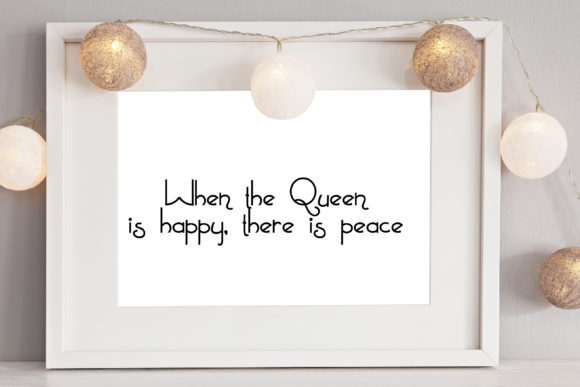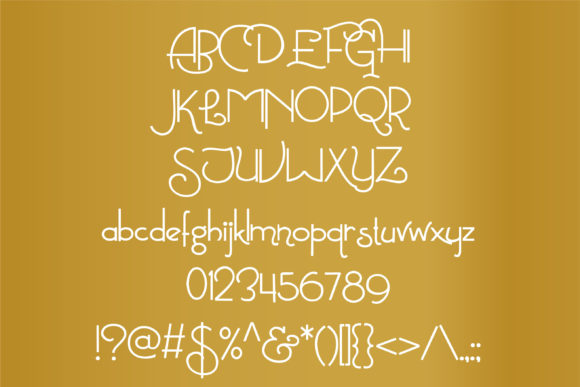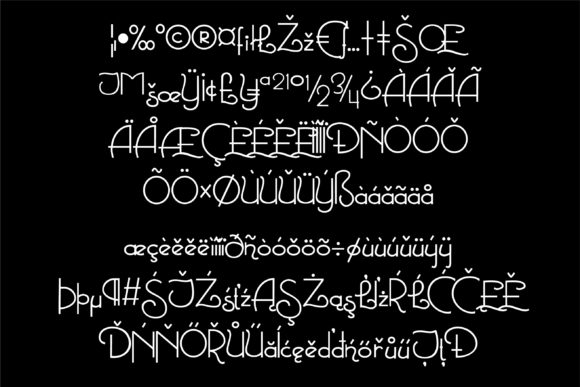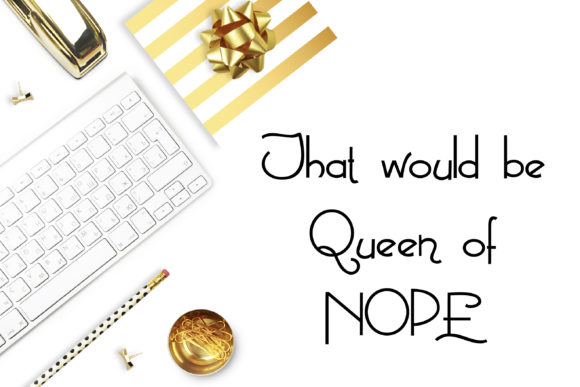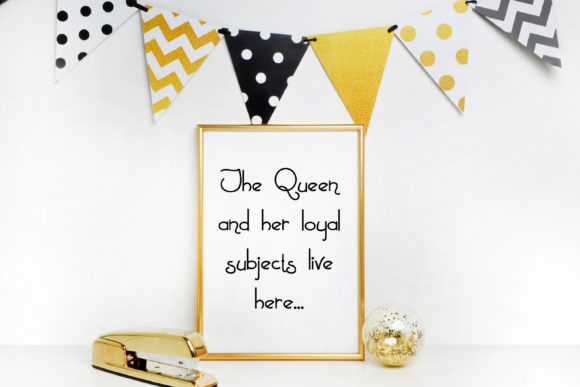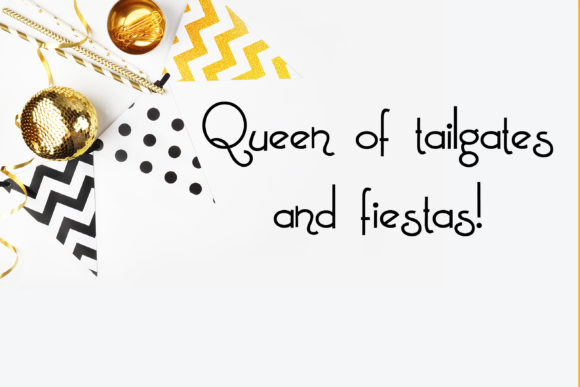
Introduction to PN Queen Edward Font
PN Queen Edward is a beautiful display font.
Its casual charm makes it appear wonderfully down-to-earth, readable and, ultimately, incredibly versatile PN Queen Edward will look outstanding in any context, whether itโs being used on busy backgrounds or as a standalone headline.
Key Features of PN Queen Edward Font
Why Choose PN Queen Edward Font?